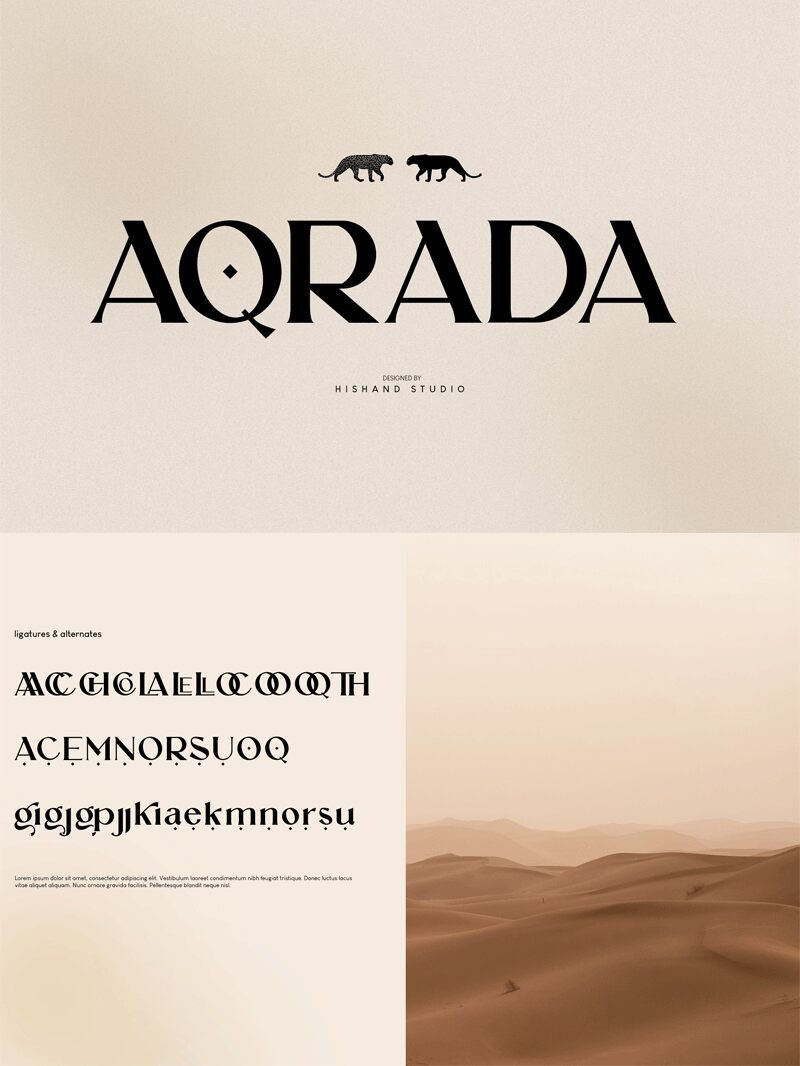
AQRADA, a remarkable serif font designed by Hishand Studio, brings elegance and sophistication to any project. Its semi-expanded width adds a touch of uniqueness while maintaining readability.
With its refined strokes and timeless charm, AQRADA is perfect for creating impressive editorial designs, luxurious branding materials, and captivating book covers. This versatile typeface seamlessly blends classic aesthetics with modern sensibilities. Enhance your projects with the allure of AQRADA, be it fashion magazines, high-end restaurant menus, or upscale invitations.
Let this font become the epitome of sophistication in your creative endeavors.
AQRADA
Hishand Studio
Putu Dody Permana